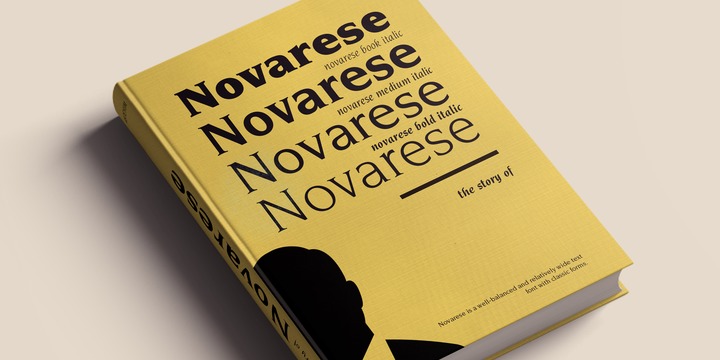
ITC Novarese
Novarese font is the work of designer Aldo Novarese. He created 218 typeface cuts but as he was writing his book, Alfabeta, he decided to include only those he considered indispensable. He divided his fonts into 4 categories and in the designing of Novarese, took the best characteristics of each group and combined them into this font. In the style of Latin stone scripts of the second century BC. Novarese is a well-balanced and relatively wide text font with classic forms.